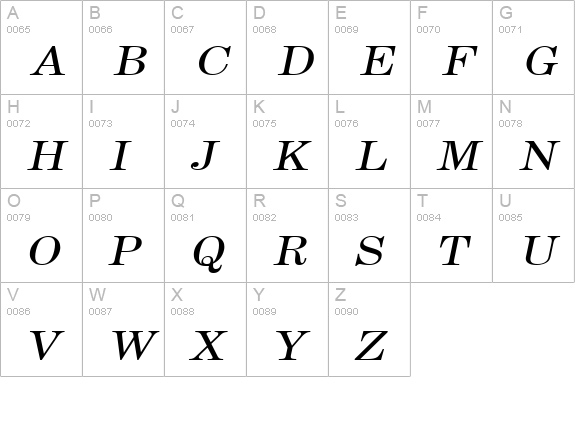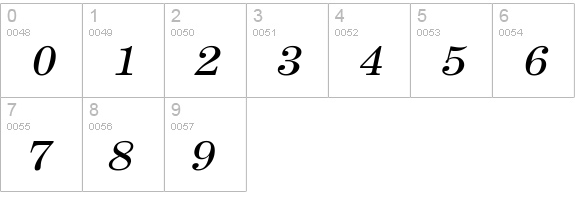
Annual-Extended Italic Font Details
Annual-Extended Italic is a distinctive, extended-width, italic variant in the Annual typeface family \xE2\x80\x94 well suited to design and typography projects.
The Annual-Extended Italic font is a sleek and sophisticated typeface that exudes elegance and modernity. With its elongated letterforms and stylish slant, this font is perfect for adding a touch of sophistication to any design project. What sets the Annual-Extended Italic font apart is not just its striking aesthetic appeal, but also its versatility. Whether you're designing a sleek corporate logo, elegant wedding invitations, or eye-catching posters, this font will elevate your design to the next level. And the best part? The Annual-Extended Italic font is completely free to download at FontsMarket.com. So you can access this high-quality typeface without breaking the bank. Don't miss out on the opportunity to add this stylish font to your collection today!